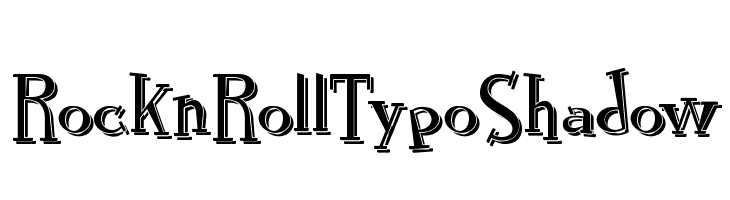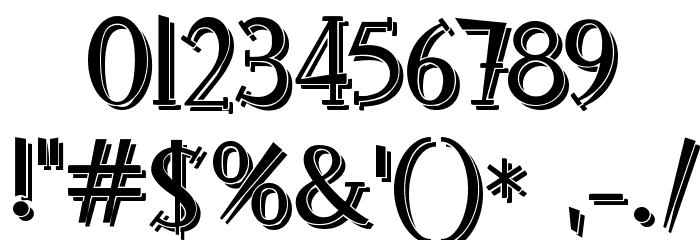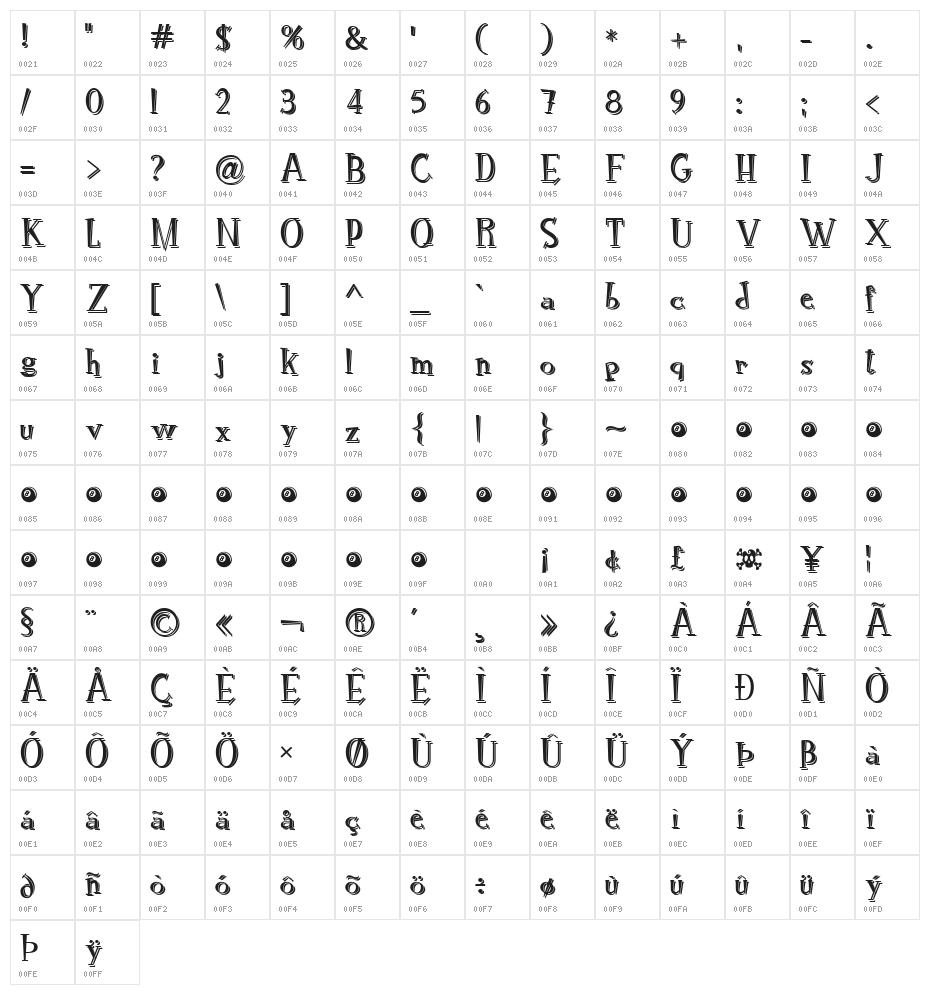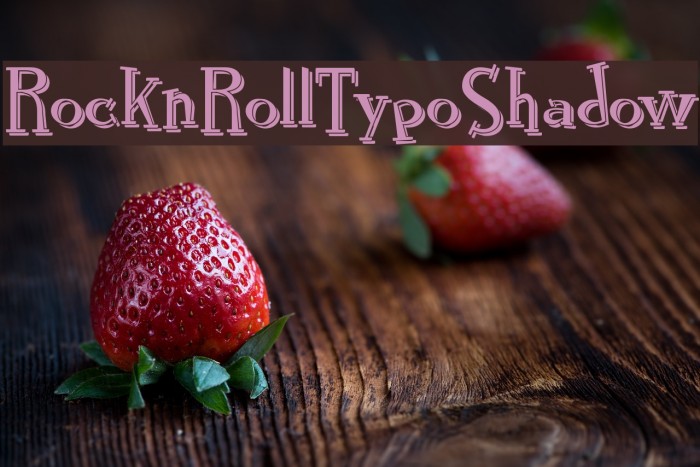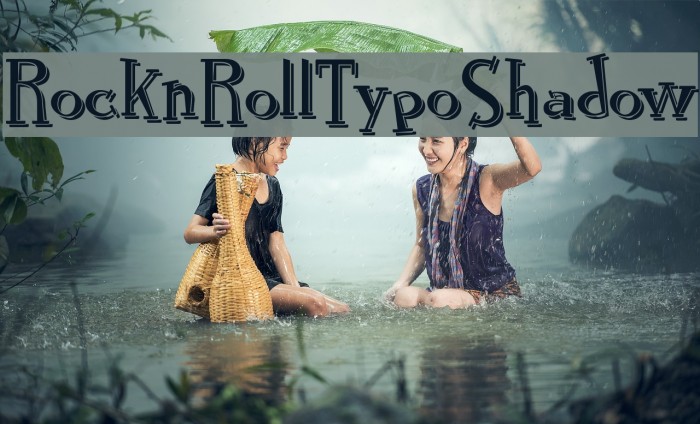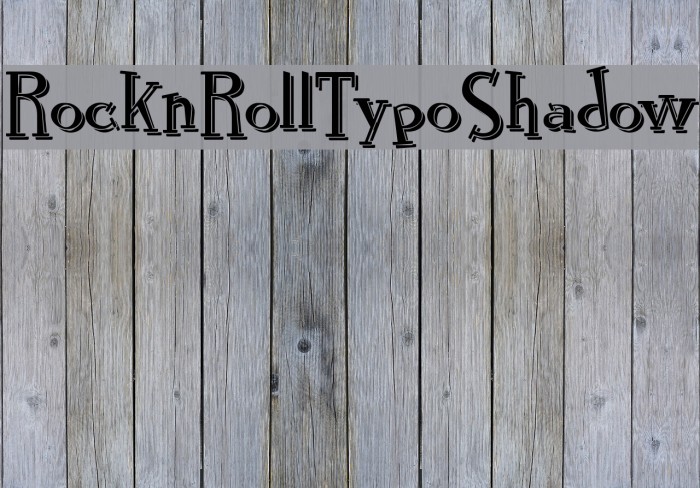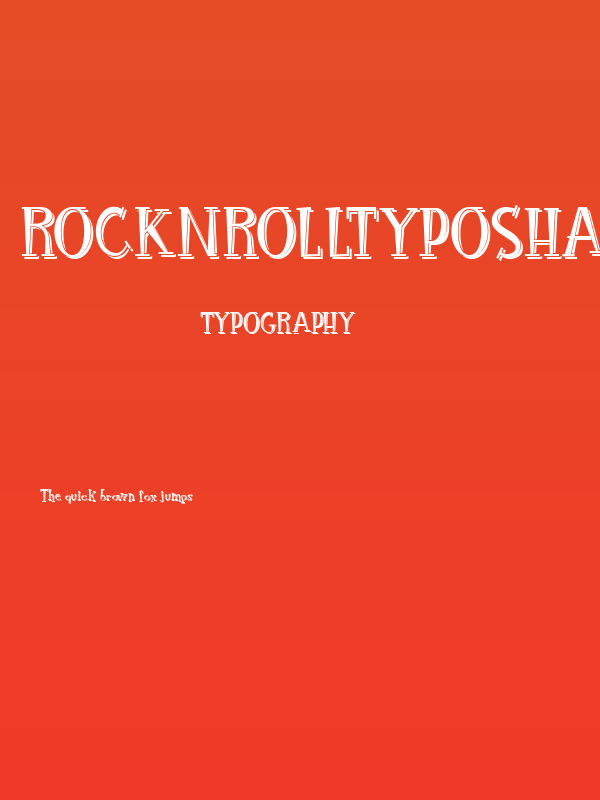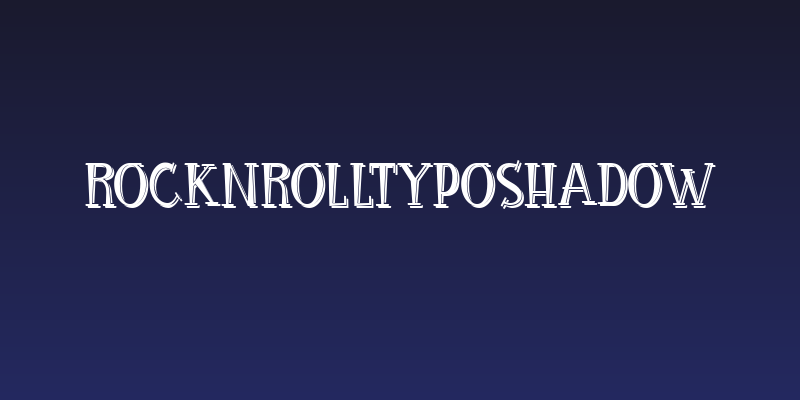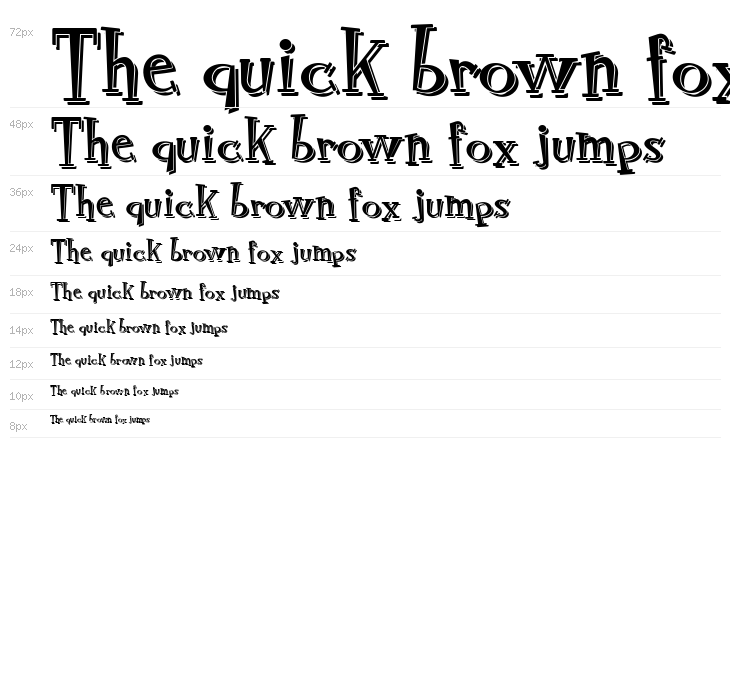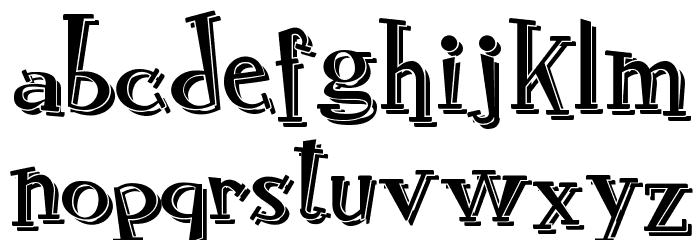
RocknRollTypoShadow Font
RocknRollTypoShadow Description
This font features a bold, decorative style with a distinct shadow effect that gives it a three-dimensional appearance. The uppercase letters are tall and commanding, while the lowercase letters maintain a playful yet structured form. The numerals are equally bold, ensuring they stand out in any design. Special characters are creatively styled, adding to the font's unique personality. The overall design is reminiscent of vintage rock and roll aesthetics, making it ideal for projects that require a touch of retro flair.
| Proposed Projects | This font is perfect for music posters, album covers, vintage-themed branding, and any project that seeks to capture a retro or rock and roll vibe. |